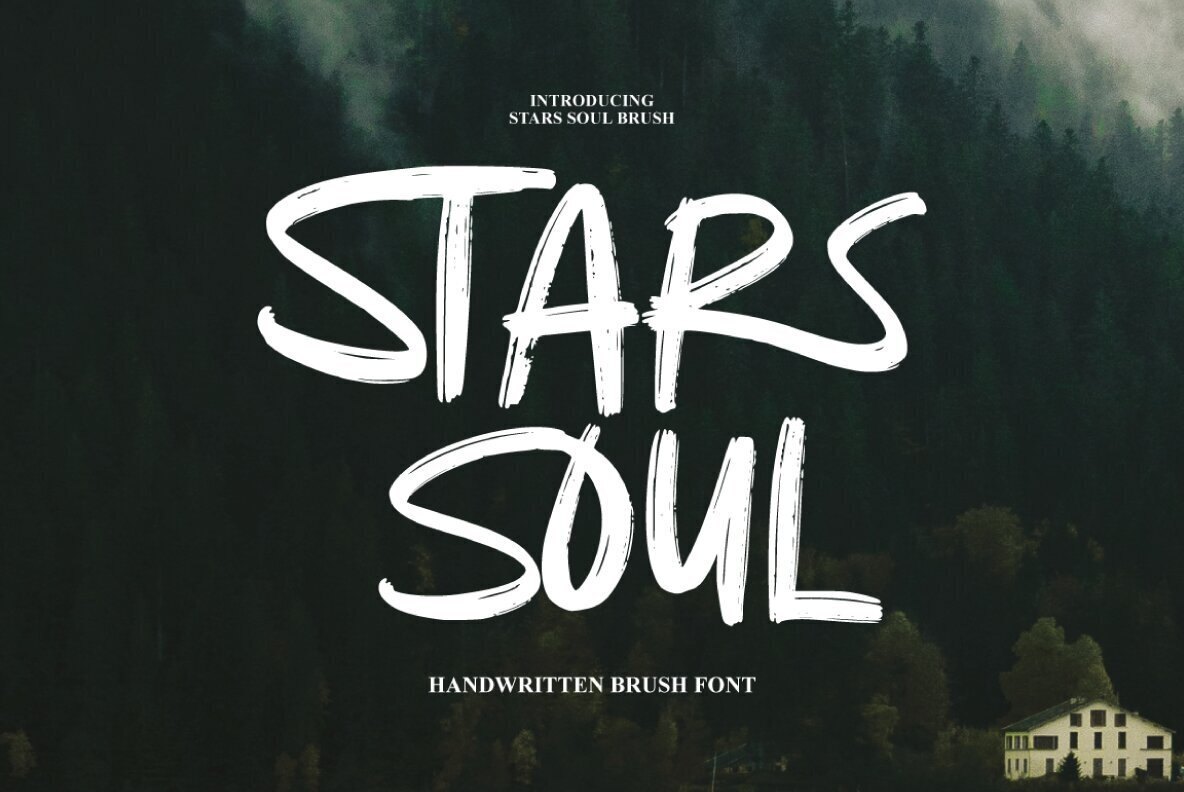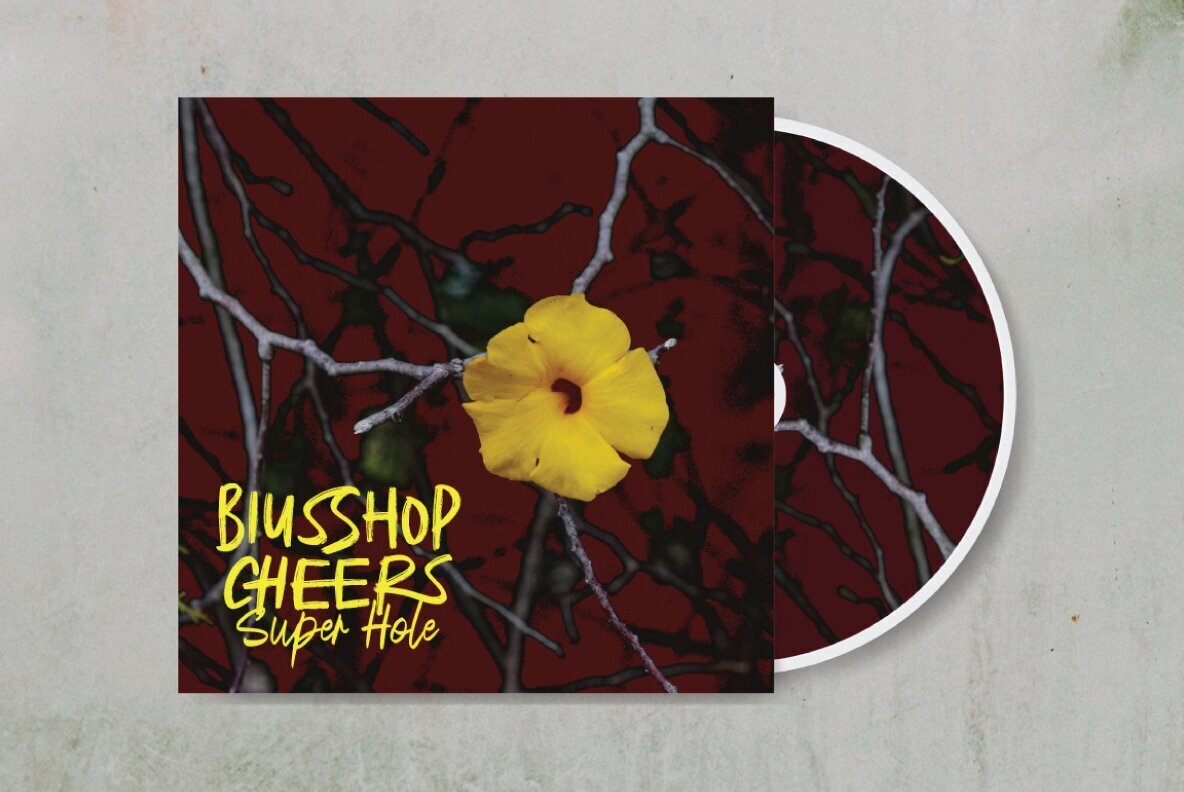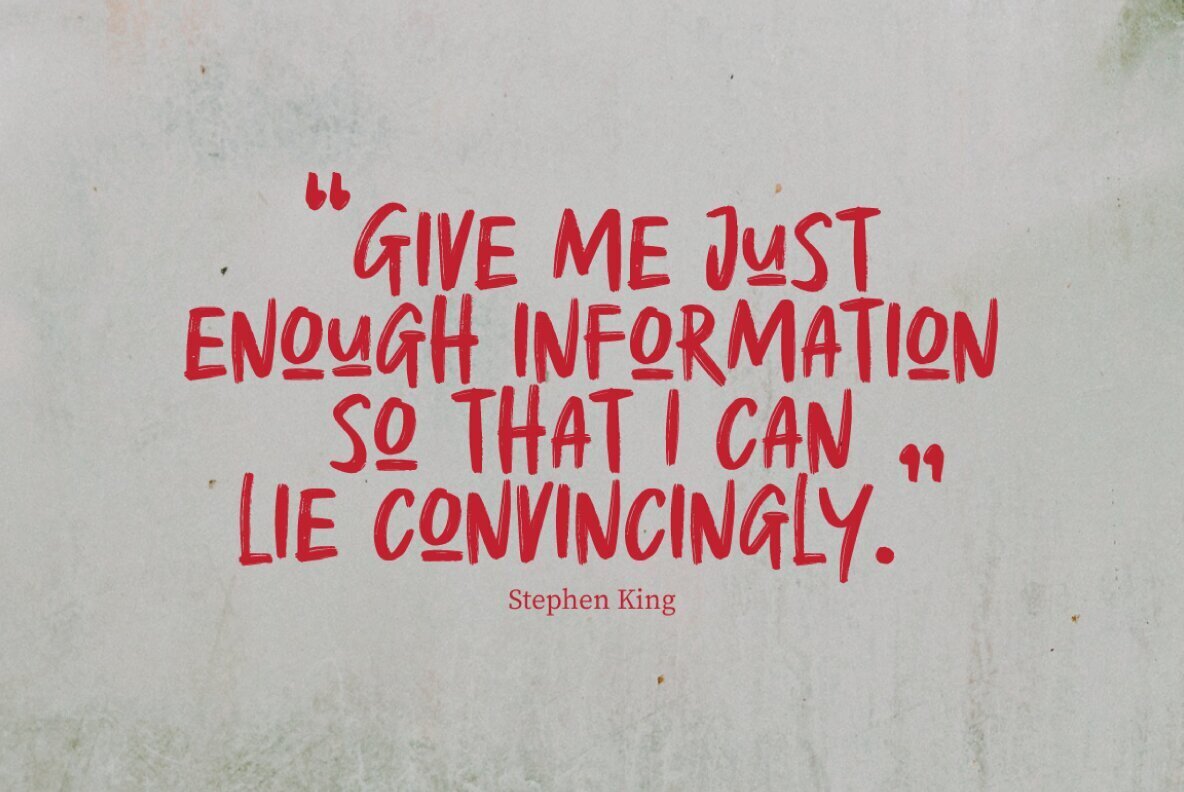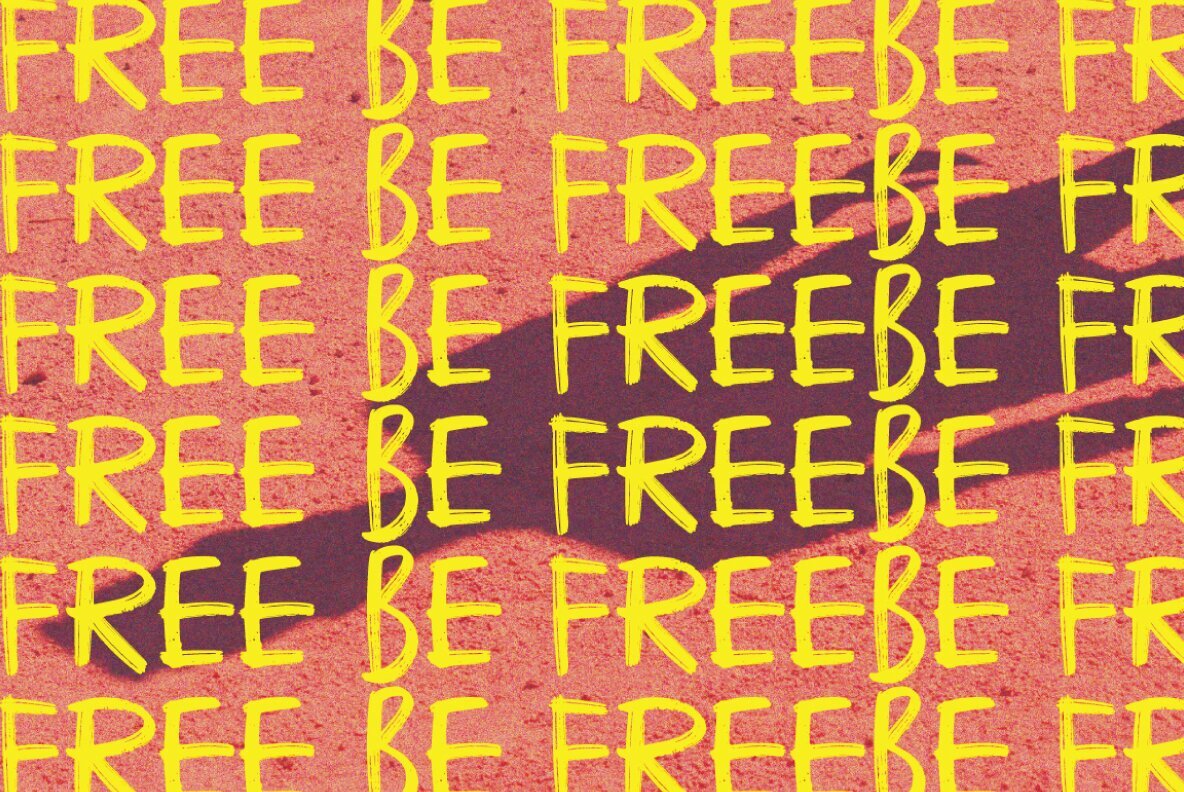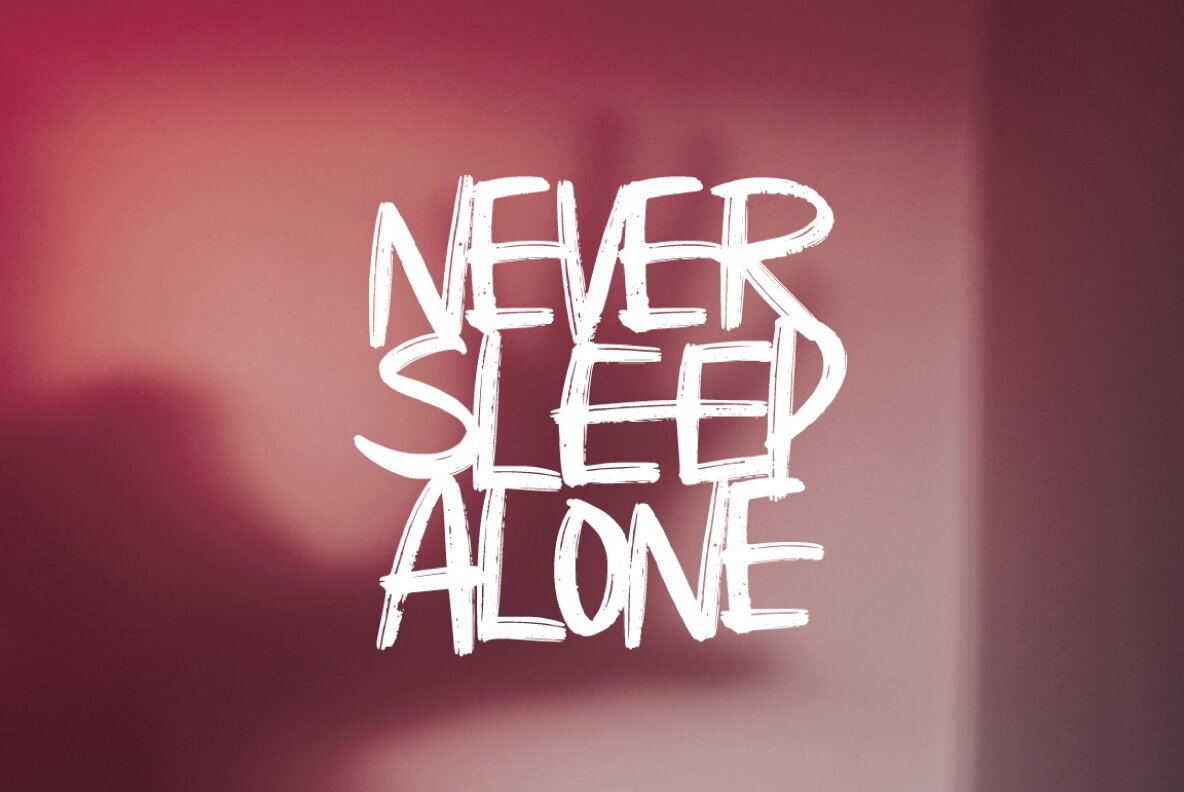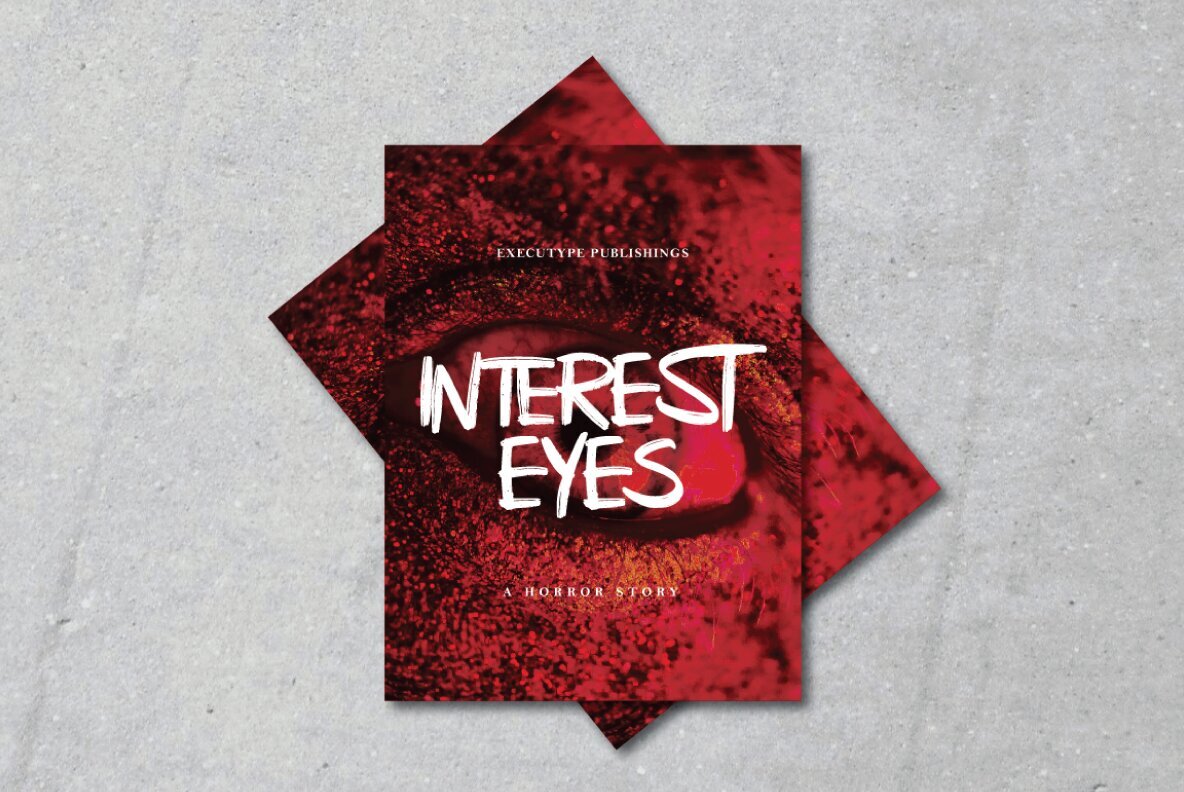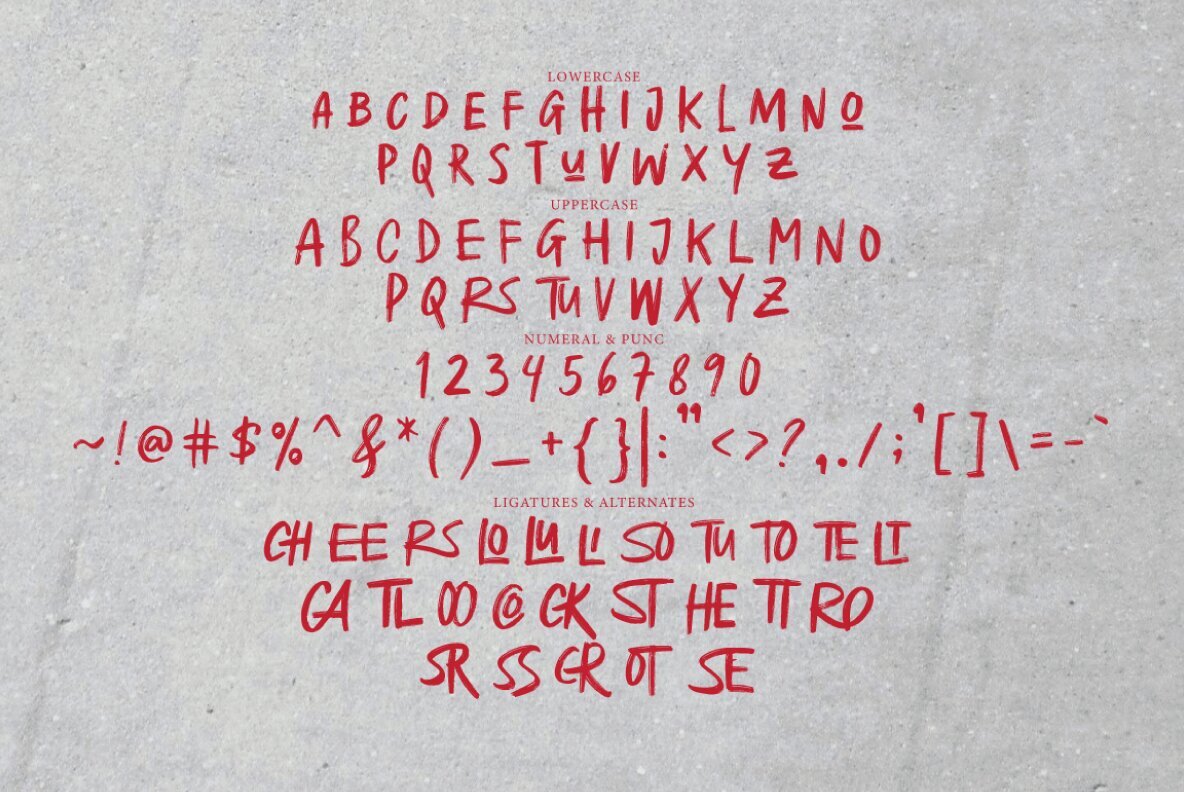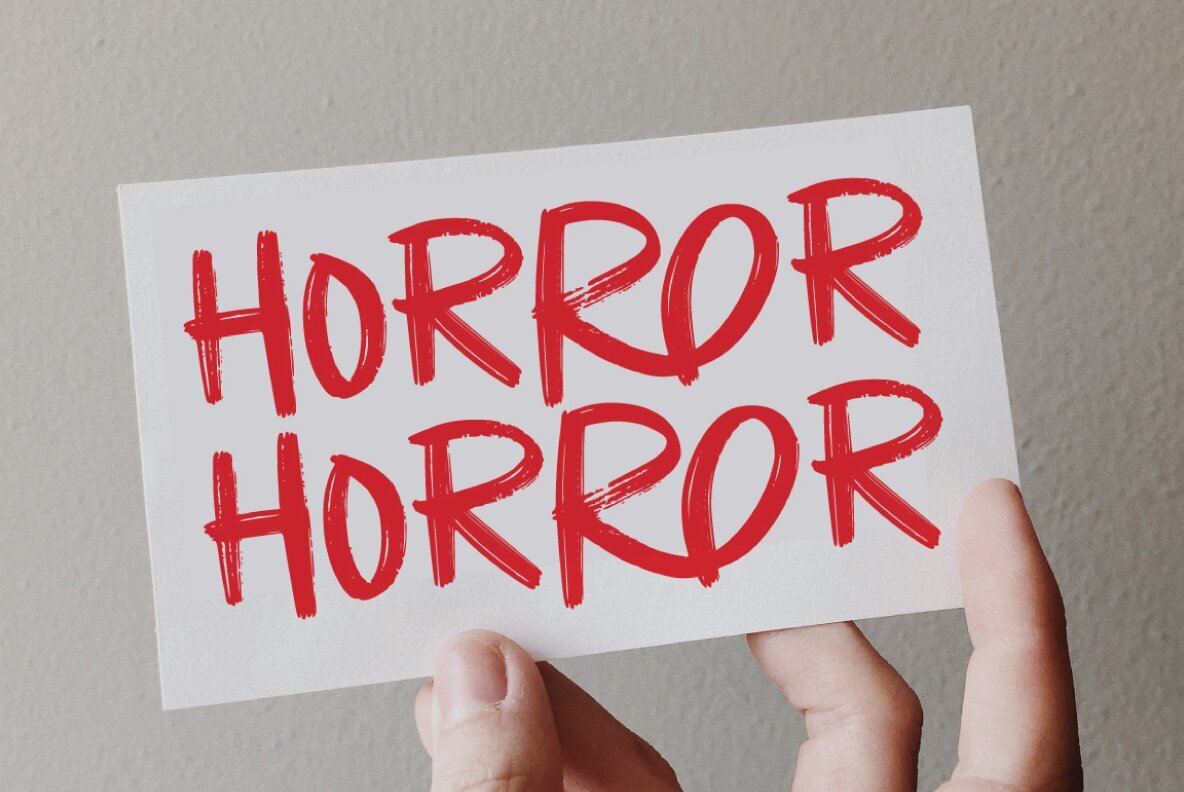
Stars Soul Brush Font
Stars Soul Brush Regular
Inject your designs with personality using the Stars Soul Brush typeface from Executype Studio. Perfect for creating dynamic logos, badges, and headlines, this versatile font also enhances packaging and posters. Its unique character brings a creative edge to every project. Whether you're working on a fresh brand identity or an eye-catching graphic, Stars Soul Brush is your go-to choice for standout design.Stars Soul Brush Typeface